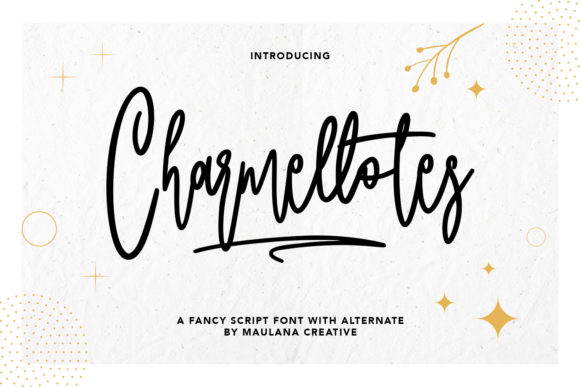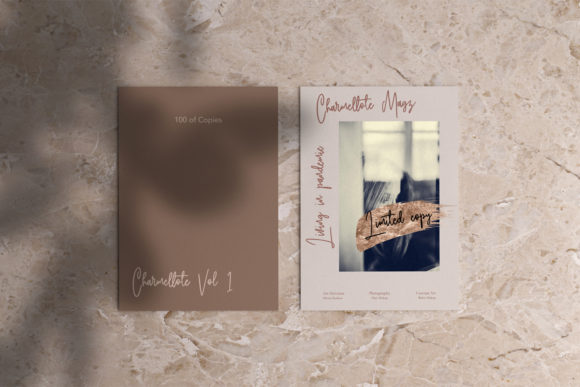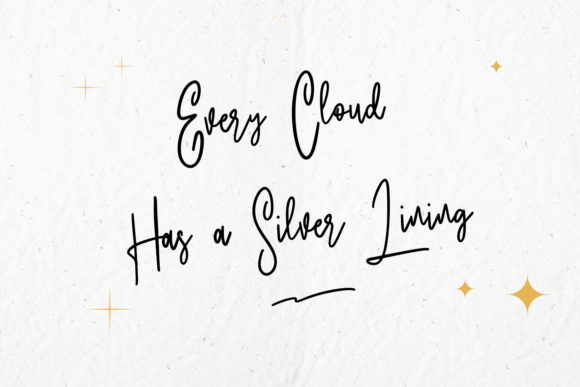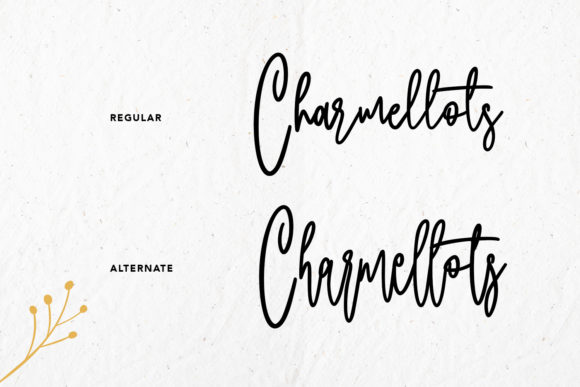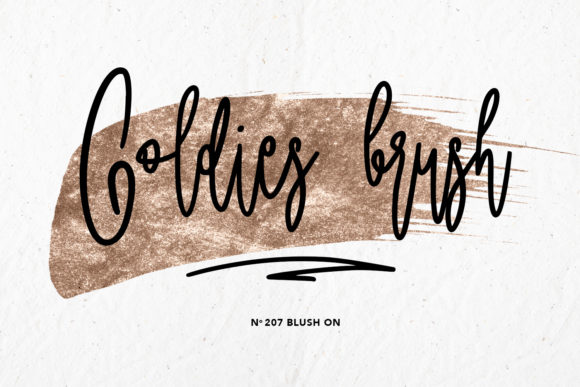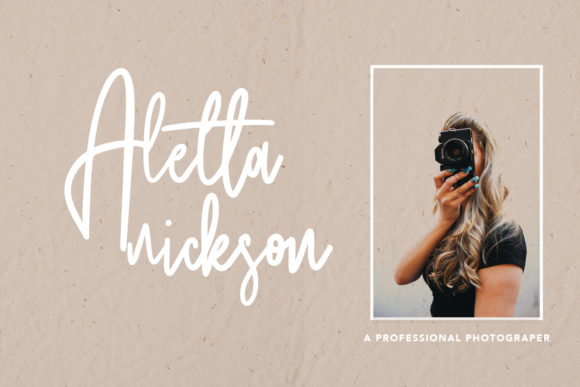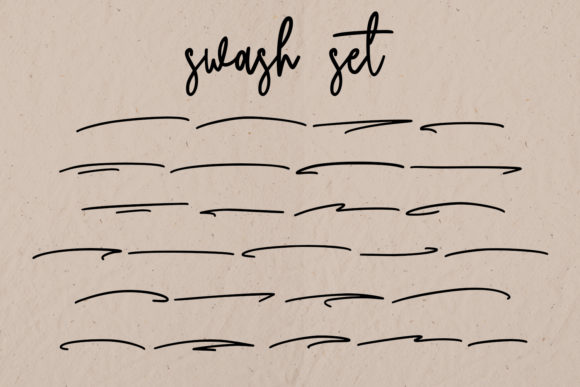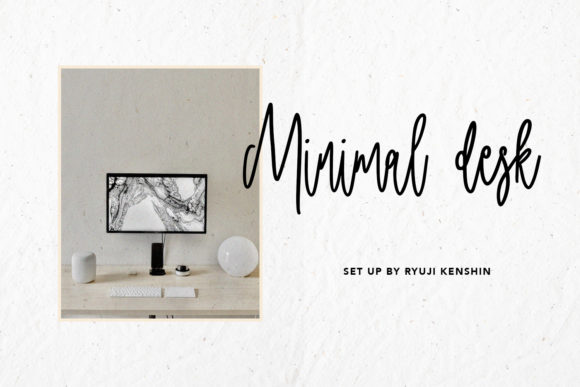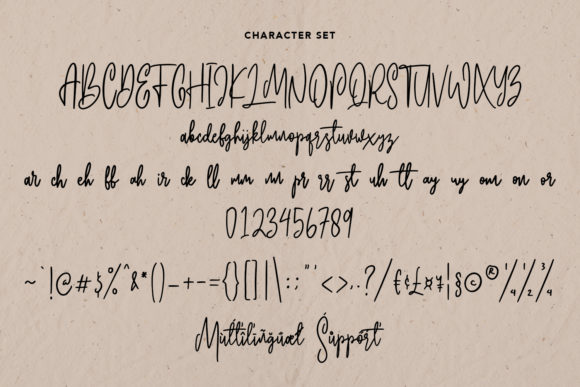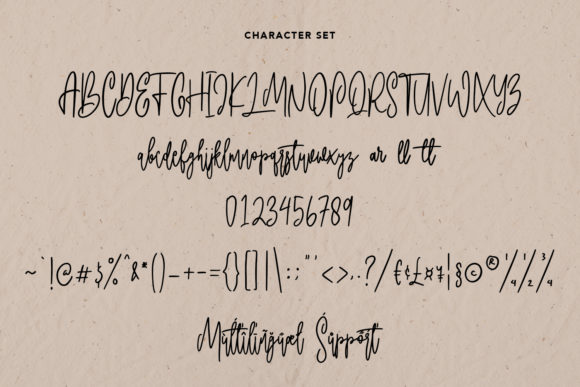
Charmellotes Font
About Charmellotes Font
Charmellotes is a font that exudes uniqueness and charm in its beautiful script style. Its distinct and personalized appearance makes it the perfect choice for any crafting project that seeks a handcrafted and individual look.
With Charmellotes, you have a font that stands out from the crowd, adding a touch of originality and personality to your crafting projects. Whether you’re creating DIY gifts, handmade cards, scrapbooking, or any other craft, Charmellotes infuses your work with a sense of artistry and creativity.
The script style of Charmellotes brings a personal and authentic touch to your designs, creating a warm and welcoming atmosphere for your recipients. Each letter carries the character and flair of a handwritten note, making your crafts truly one-of-a-kind.
Embrace the unique charm of Charmellotes and witness how it transforms your crafting projects into heartfelt and artistic creations. Its personalized look adds a sense of warmth and intimacy, making your crafts resonate deeply with your audience.
Discover the joy of using Charmellotes as your creative tool for crafting. Let its uniqueness and charm be the key to unlocking your creativity and infusing your projects with a touch of individuality and artistry.
Whether you’re crafting for personal enjoyment or sharing your creations with others, Charmellotes is the font that adds that extra touch of flair and creativity to your crafts. Embrace the creative potential of Charmellotes and let it be the font that sparks your inspiration and brings a personalized look to your crafting projects. Experience the magic of Charmellotes and witness how it enhances the beauty and impact of your crafts, making them truly special and memorable.